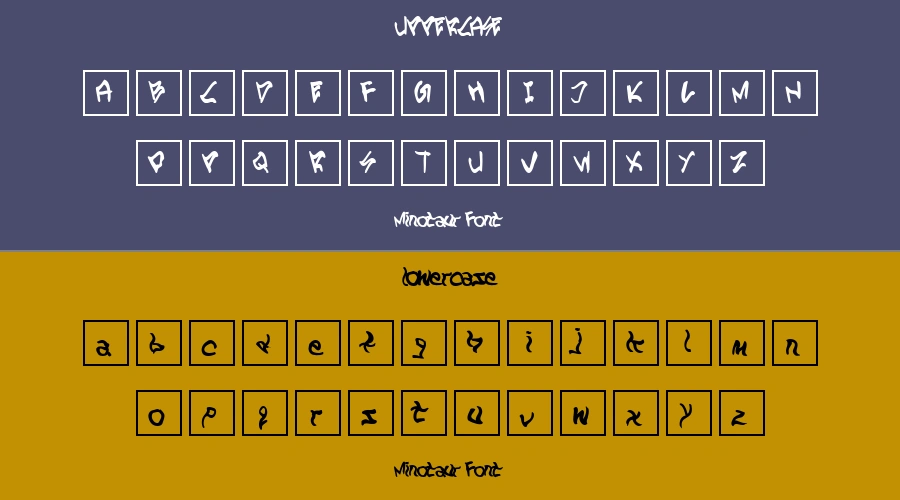
About Minotaur Font
Designed with precision, Minotaur Font merges ornamental caps with consistency in every character. This versatility makes it particularly effective for brand identities, where distinctiveness and design innovation directly impact communication quality. Each letterform demonstrates meticulous craftsmanship.
Technical excellence shines through elements like structural clarity and technical characters, enhancing typographic versatility. In brand logos settings, Minotaur Font proves its worth through superior special effects. The thoughtful execution of terminal style and contemporary relevance ensures professional results.